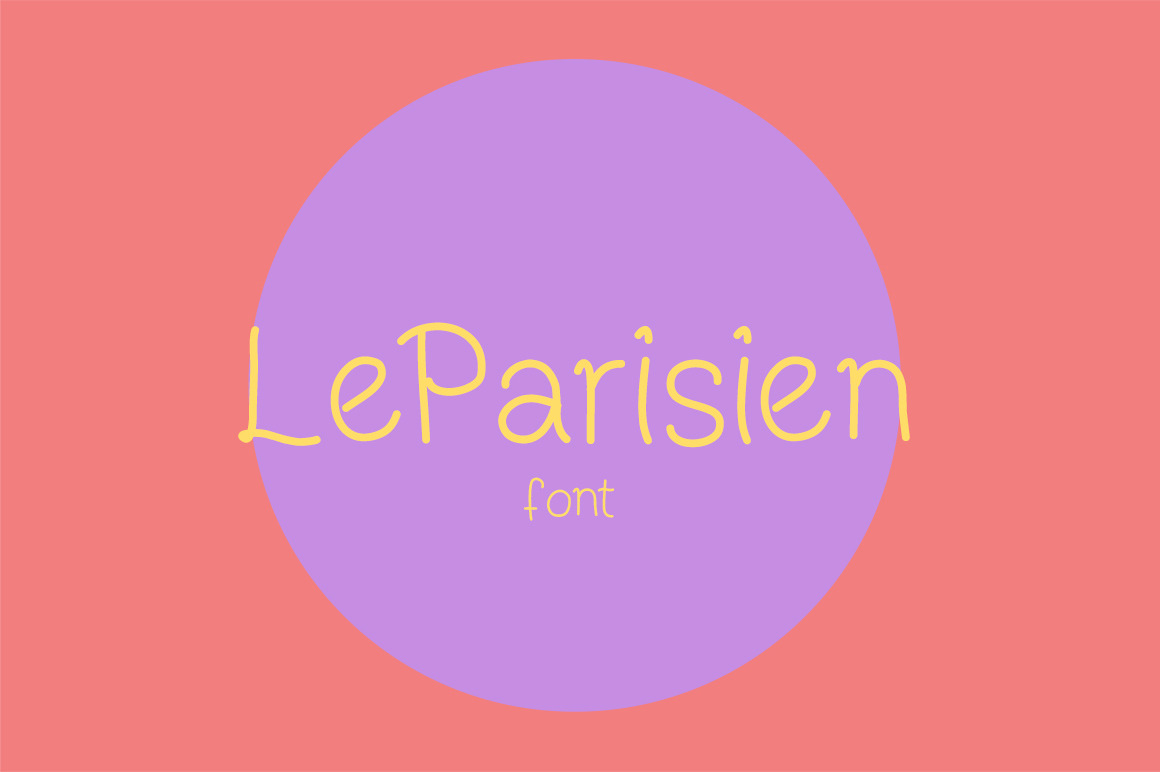
Le Parisien - 2 font style
Le Parisien is a handwritten typeface that comes in both uppercase and lowercase styles. It has a very smooth serifs, combines from clean and simple touch.
Le Parisien is perfect for publishing, printed quotes, invitations, cards, product packaging, headers and whatever your imagination holds. File Include: